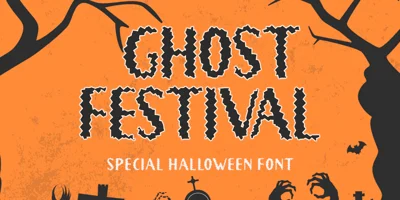
Ghost Festival Font
Ghost Festival Font is perfect for Halloween decorations, horror movie posters, haunted attractions, spooky party invitations, gothic branding, mystery novels, paranormal websites, escape room designs, themed restaurants, and seasonal marketing campaigns. This atmospheric typeface excels in projects that require mystery, suspense, and supernatural appeal.
What makes Ghost Festival Font exciting is its masterful ability to evoke supernatural atmosphere through carefully crafted letterforms that seem to float between the living and spirit worlds. The font features ethereal characteristics with ghostly transparency effects, shadowy depths, and mysterious curves that create an instant sense of otherworldly presence. Its haunting beauty captures the essence of spectral elegance while maintaining excellent readability for practical applications.
Ghost Festival Font includes comprehensive font families such as Regular, Bold, Light, Shadow, Outline, and Distressed variants. Each family member preserves the distinctive supernatural character while offering different levels of intensity and stylistic approaches to accommodate various spooky design needs and atmospheric requirements.
This premium horror typeface serves as an exceptional choice for designers working in entertainment, seasonal marketing, and themed experiences. Ghost Festival Font provides incredible value for event planners, horror enthusiasts, and creative agencies specializing in atmospheric branding. The font's haunting appeal makes it particularly suitable for October campaigns, gothic literature, paranormal content, and immersive entertainment experiences.
Whether you're designing promotional materials for haunted attractions, creating atmospheric branding for mystery entertainment, or developing seasonal campaigns for Halloween festivities, Ghost Festival Font brings the perfect supernatural touch to make every project spine-tingling and memorable.